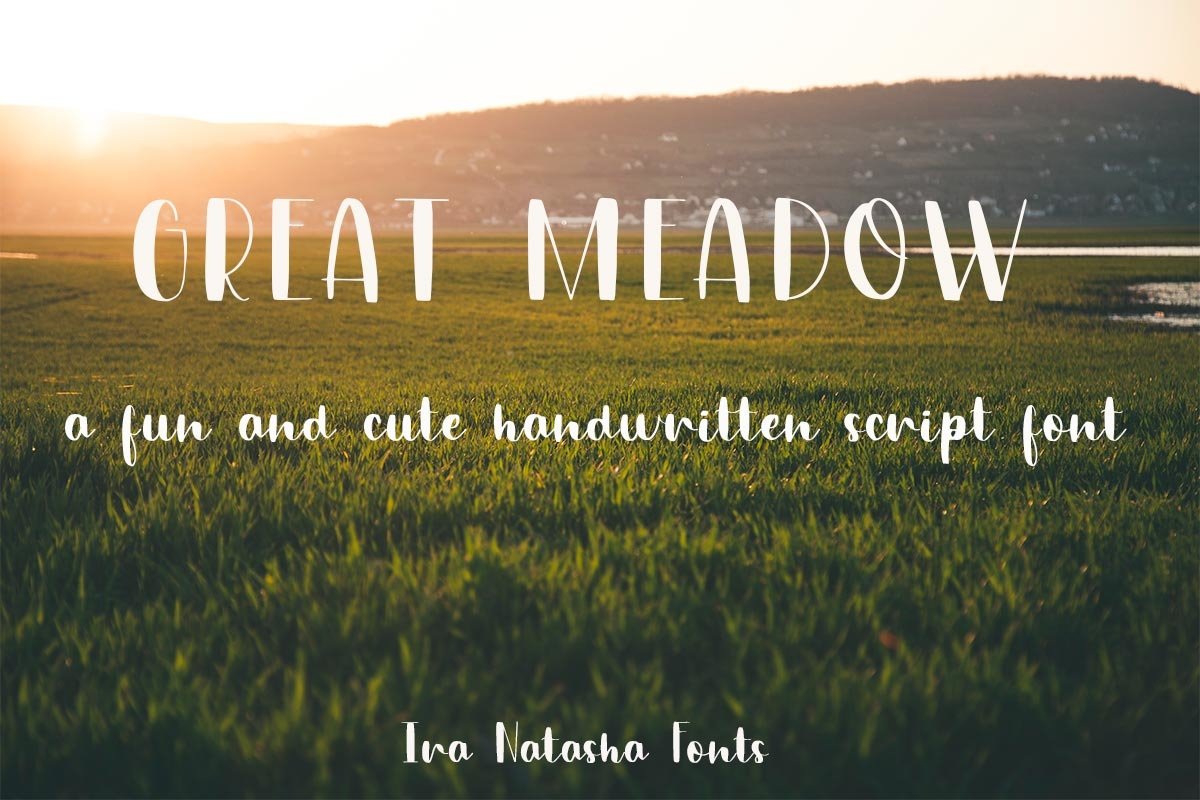
Great Meadow
Great Meadow is a fun and cute script font. A new fresh handmade font with smooth edges. This font is support multi language. Available in OTF and TTF and web font. This font will perfect for many different project ex: quotes, logo, blog header, poster, branding, fashion, apparel, letter, invitation, stationery, etc….
Smooth Script Handwritten Font